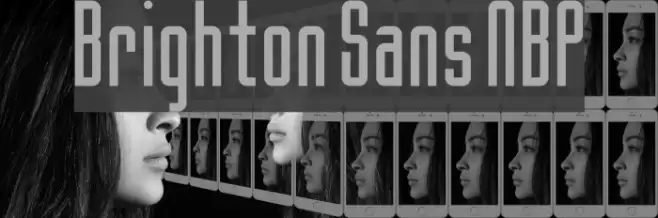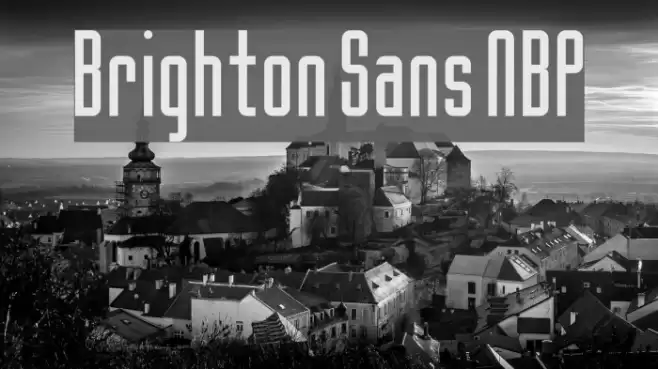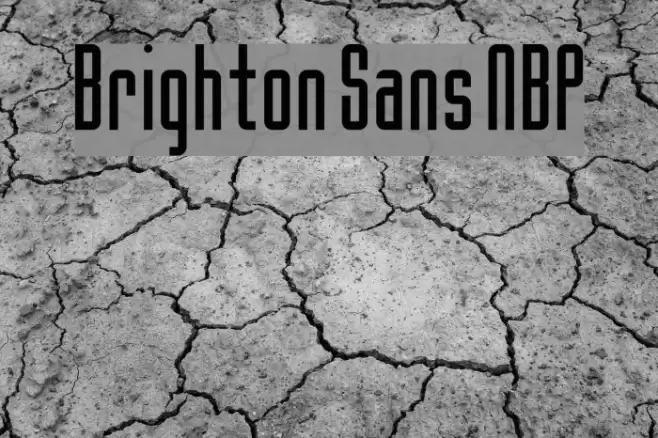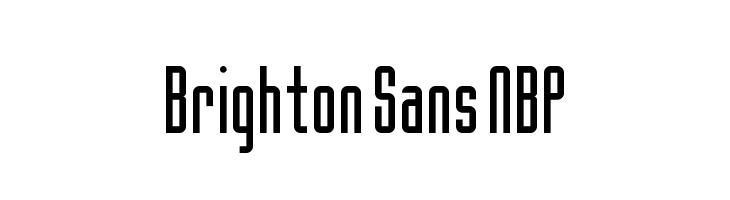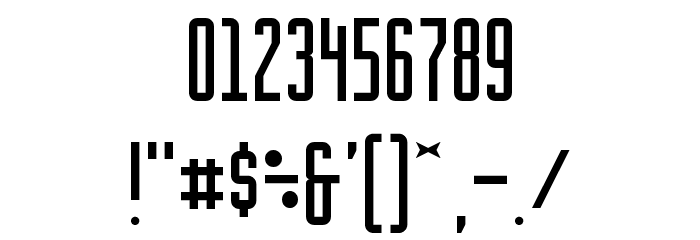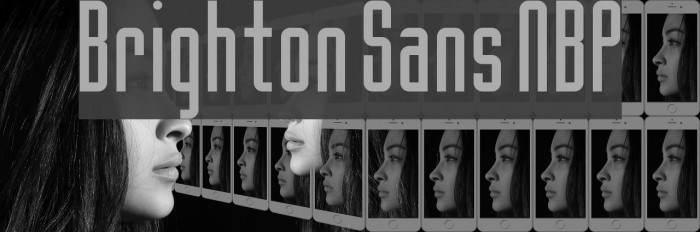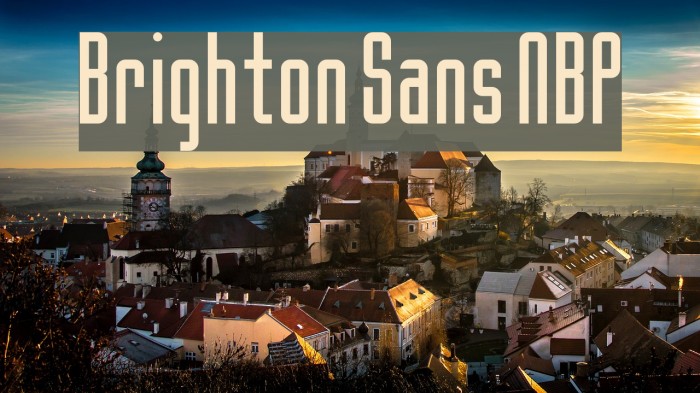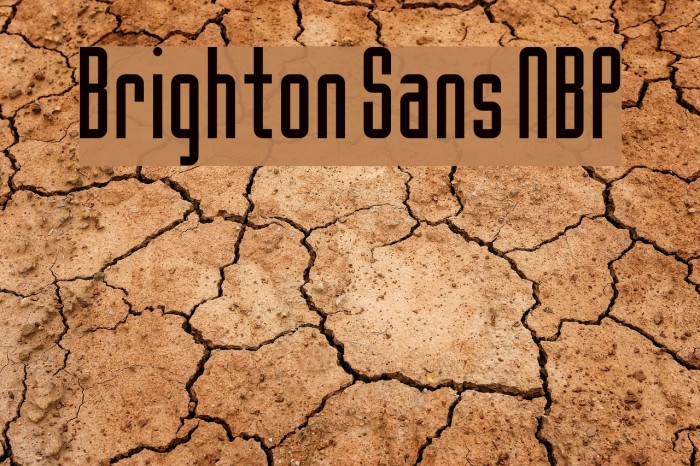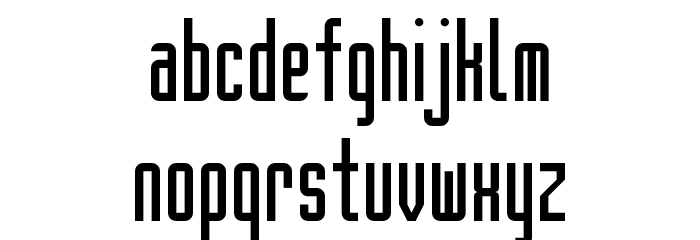
This font features a modern, geometric design with a distinctively tall and narrow structure. The uppercase letters are bold and striking, with consistent vertical strokes and minimal curves, giving a clean and streamlined appearance. Lowercase letters maintain the same geometric style, ensuring readability while preserving the font's unique character. The numerals and special characters are designed to match the overall aesthetic, providing a cohesive look across all elements. The font's uniform stroke width and lack of serifs contribute to its contemporary and professional feel.
A modern, geometric sans-serif font with tall, narrow letters and a clean, streamlined appearance from Uncategorized fonts.
- Proposed Projects: Ideal for branding, posters, and headlines where a modern and professional look is desired.